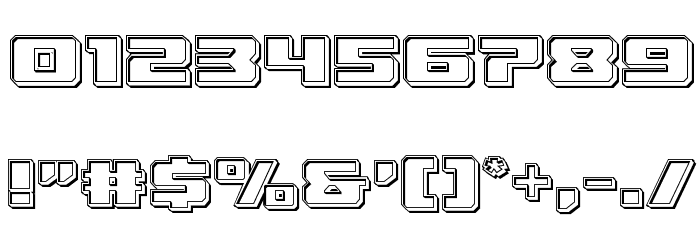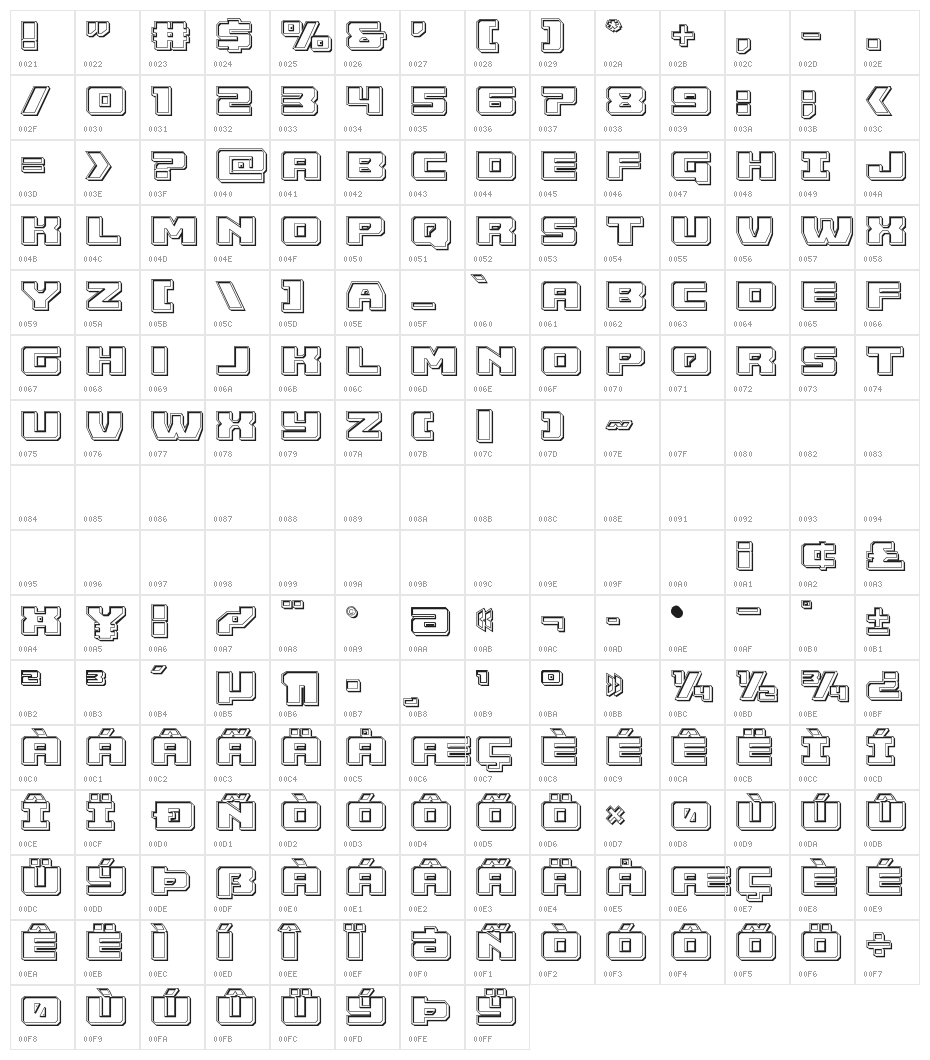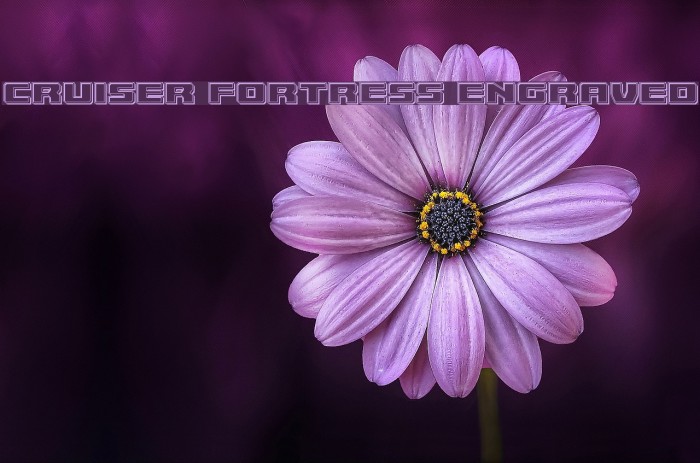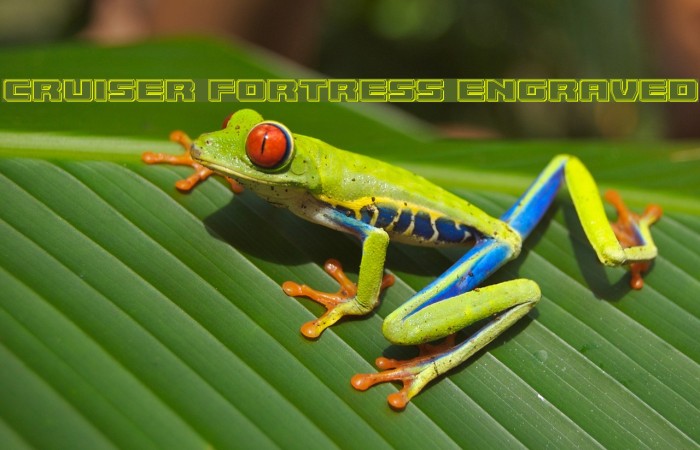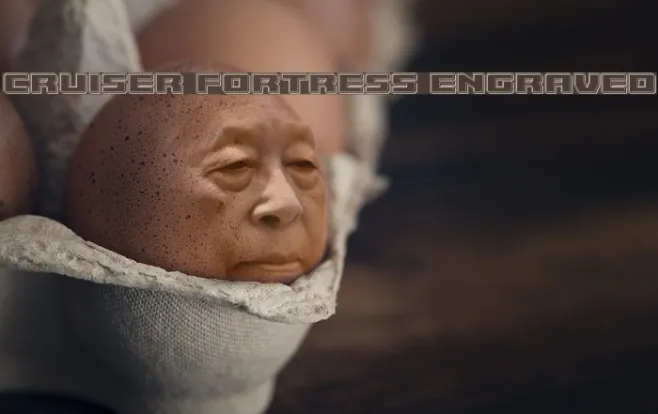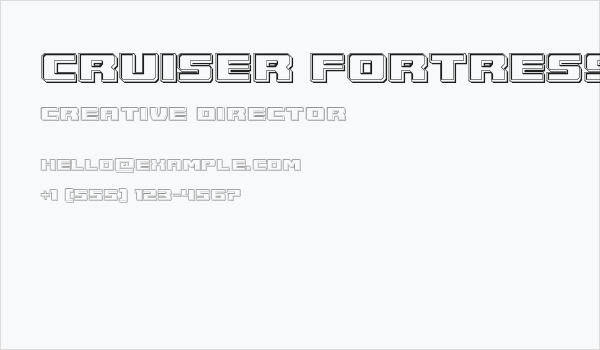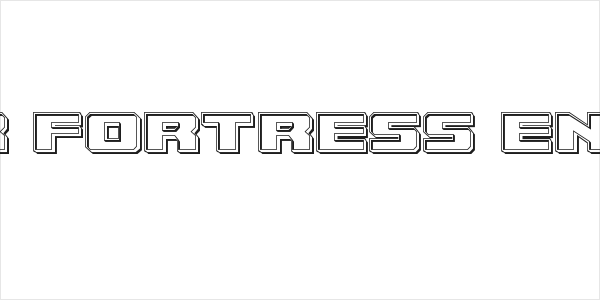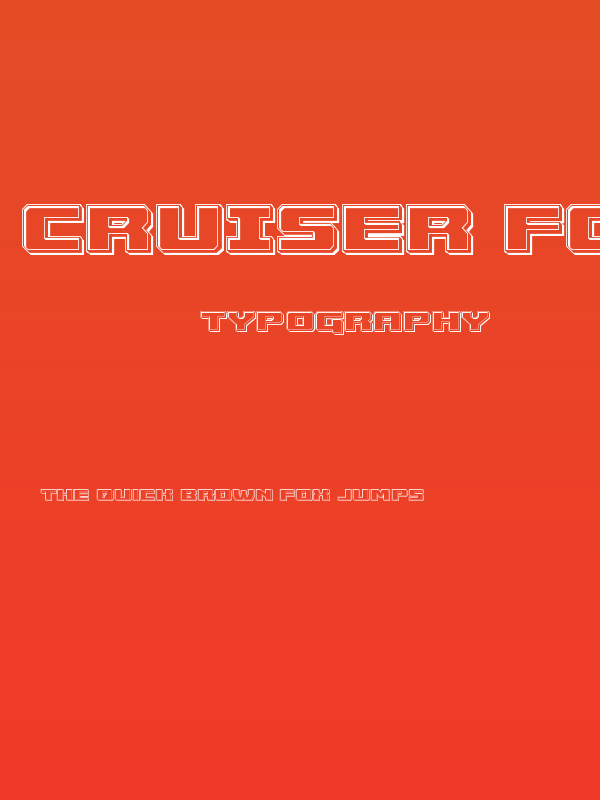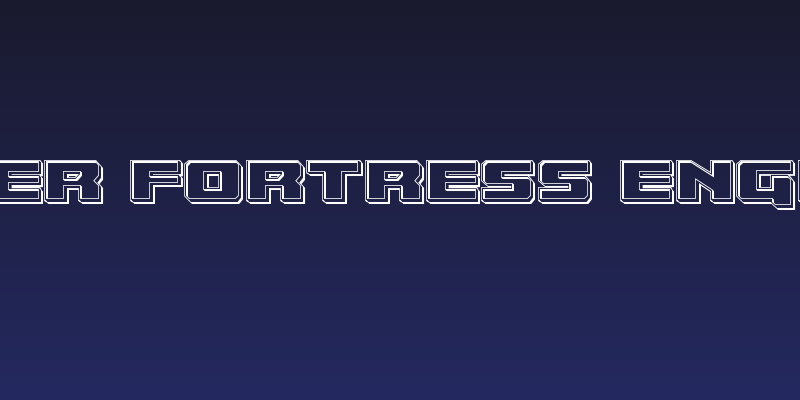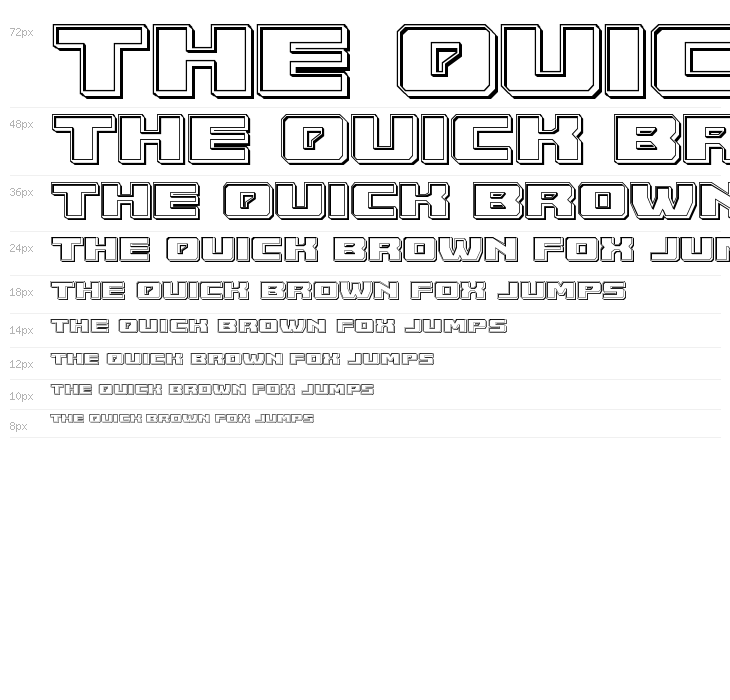
Cruiser Fortress Engraved Font
Cruiser Fortress Engraved Description
This font features a bold, geometric design with a three-dimensional effect, achieved through the use of double lines and shadowing. The characters are uppercase only, with a blocky, industrial appearance that suggests strength and stability. Each letter is outlined, creating a striking visual impact that is both modern and reminiscent of engraved or embossed text. The numbers and special characters follow the same stylistic approach, ensuring consistency across all glyphs. This font is ideal for projects that require a strong, impactful presence, such as posters, logos, or headings.
| Proposed Projects | Perfect for posters, logos, video game titles, and any design needing a strong, industrial look. |